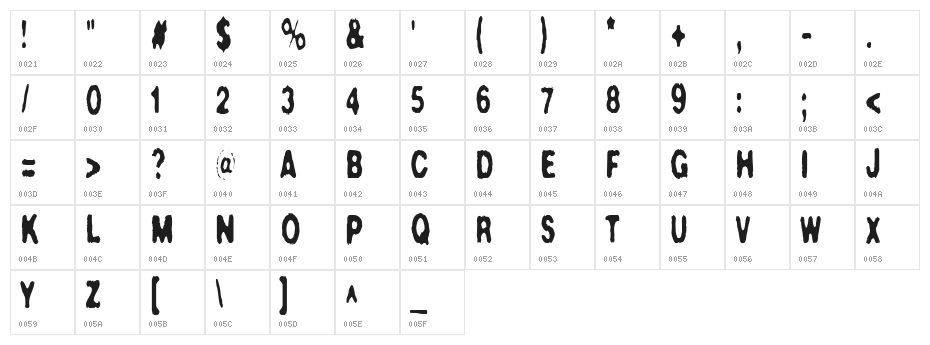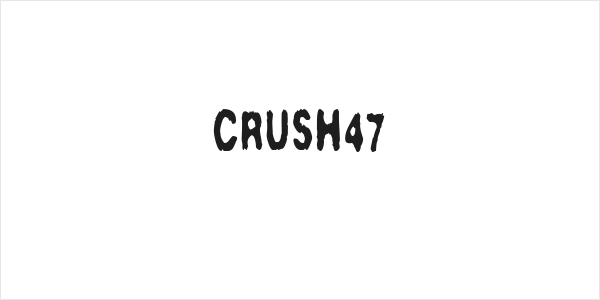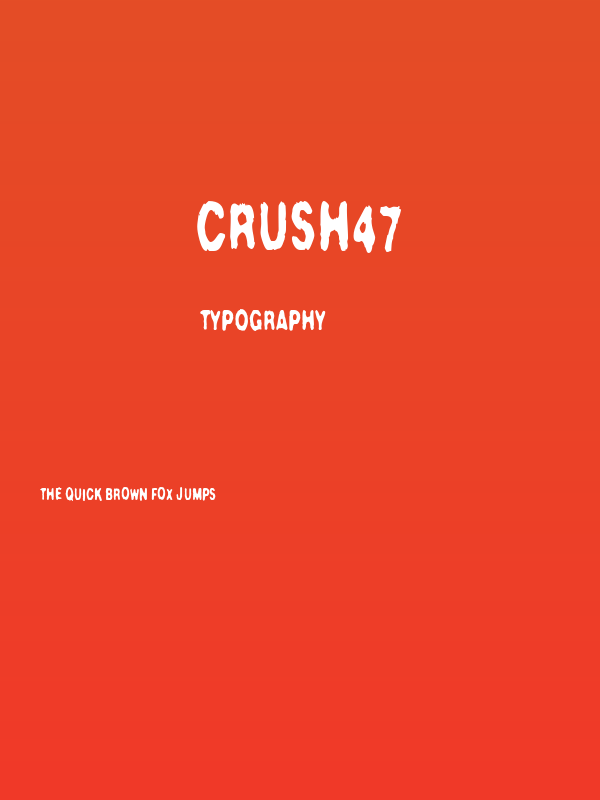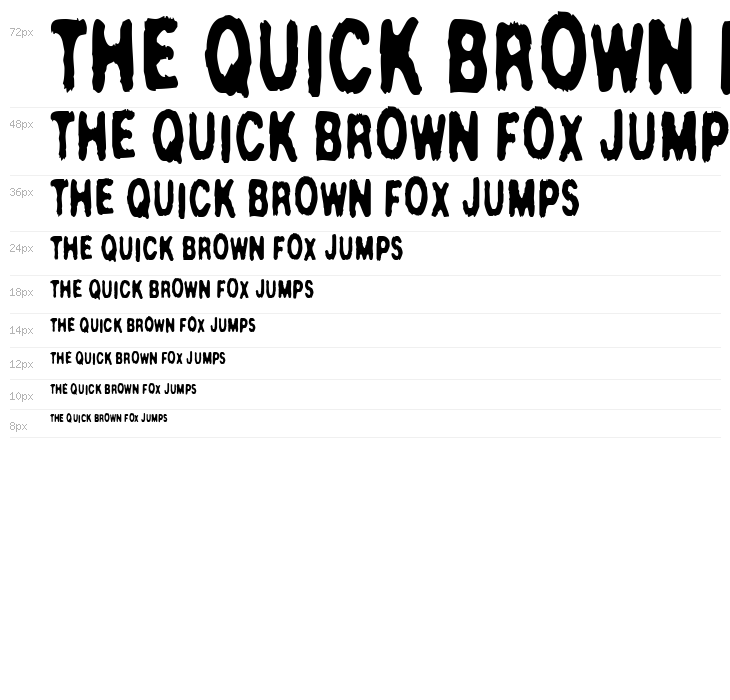
Crush47 Font
Crush47 Description
This font features a bold and rugged style, characterized by its irregular, distressed edges that give it a hand-painted appearance. The characters are thick and substantial, with a slightly uneven baseline that adds to its organic and dynamic feel. The uppercase and lowercase letters maintain a consistent weight, while the numbers and special characters follow the same bold and textured design. This font's unique style makes it stand out, offering a raw and energetic aesthetic that is both eye-catching and memorable.
Proposed ProjectsIdeal for projects requiring a bold statement, such as posters, album covers, branding for edgy products, or any design needing a raw, artistic touch.